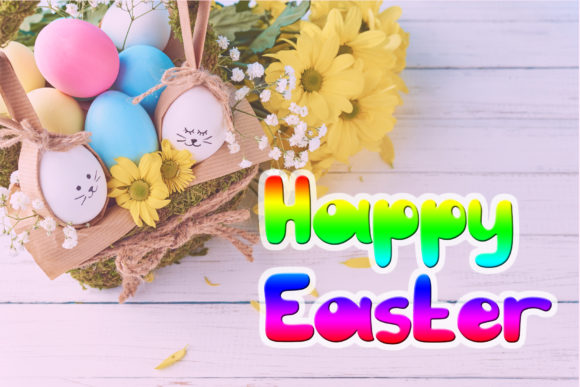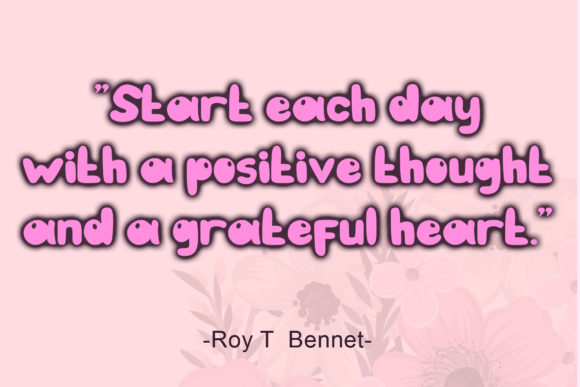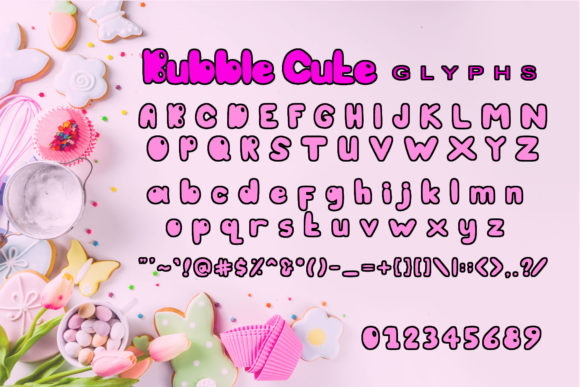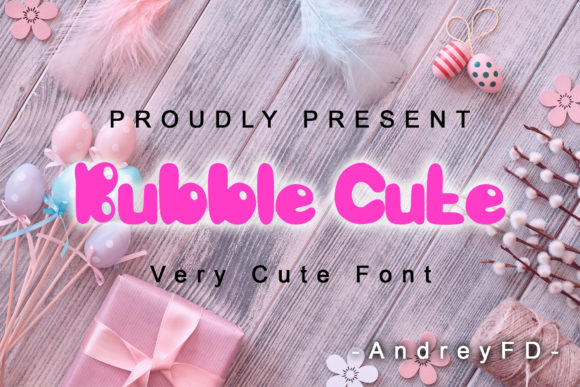
Bubble Cute Font: The Perfect Addition to Your Design Arsenal
Are you a designer or crafter looking for a font that can add a touch of whimsy and charm to your projects? Look no further than the Bubble Cute font! This beautiful display font is carefully handcrafted to become a true favorite among designers and crafters alike. Its casual charm makes it appear wonderfully down-to-earth, readable, and incredibly versatile.
The Characteristics of Bubble Cute Font
Bubble Cute font is a stunning display font that boasts a unique and playful design. Its handcrafted nature gives it a personal touch that sets it apart from other fonts. Here are some of its key characteristics:
- Handcrafted with love: Each letter is carefully crafted to ensure that the font has a personal and unique touch.
- Casual charm: The font exudes a casual charm that makes it perfect for a wide range of design projects.
- Readable: Despite its playful design, the font is highly readable, making it perfect for use in a variety of contexts.
- Versatile: The font is incredibly versatile and can be used in a wide range of design projects, from headings and titles to signage and branding.
Why Choose Bubble Cute Font?
So, why should you choose Bubble Cute font for your design projects? Here are just a few reasons:
- Unique design: The font’s unique design sets it apart from other fonts and can help your designs stand out from the crowd.
- Easy to read: The font’s readability makes it perfect for use in a wide range of contexts, from digital designs to print materials.
- Flexible: The font’s versatility makes it perfect for use in a wide range of design projects, from children’s designs to more serious and professional projects.
- High-quality: The font is carefully crafted to ensure that it is of the highest quality, making it perfect for use in professional designs.
How to Use Bubble Cute Font
Bubble Cute font is perfect for use in a wide range of design projects. Here are just a few ideas to get you started:
- Headings and titles: The font is perfect for use in headings and titles, adding a touch of whimsy and charm to your designs.
- Signage: The font’s readability and versatility make it perfect for use in signage, from store signs to event signs.
- Branding: The font’s unique design and casual charm make it perfect for use in branding, from logos to packaging.
- Children’s designs: The font’s playful design makes it perfect for use in children’s designs, from children’s books to nursery decor.
Tips for Getting the Most Out of Bubble Cute Font
Here are just a few tips for getting the most out of Bubble Cute font:
- Experiment with different colors: The font’s versatility makes it perfect for use with a wide range of colors, so don’t be afraid to experiment and find the perfect combination for your design.
- Use it with contrasting backgrounds: The font’s readability makes it perfect for use on busy backgrounds or with contrasting colors.
- Mix it with other fonts: The font’s unique design makes it perfect for use in combination with other fonts, so don’t be afraid to get creative and try out different combinations.
Bubble Cute font is a beautiful and versatile display font that is perfect for use in a wide range of design projects. Its handcrafted nature, casual charm, and readability make it a true favorite among designers and crafters alike. Whether you’re looking to add a touch of whimsy and charm to your designs or simply want a font that is easy to read and versatile, Bubble Cute font is the perfect choice.